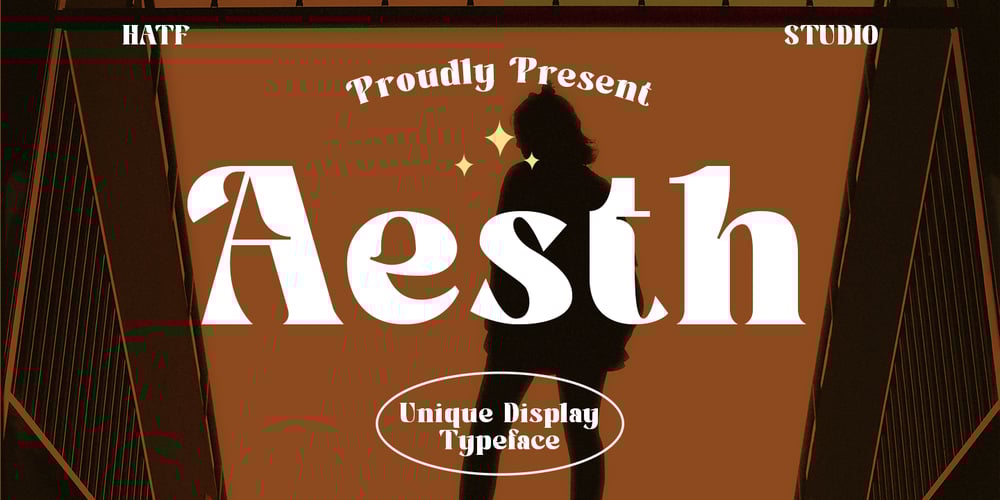
Aesth
Aesth font
Aesth Font Family was designed by Asep Rendi and published by Hatftype. Aesth contains 1 styles and family package options. Aesth is a unique display typeface. Is a visual feast that transcends traditional boundaries. With its unconventional shapes and dynamic letterforms, bold, imaginative, and utterly distinctive this typeface commands attention and breathes life into any design it graces. Each character is a work of art, meticulously crafted to convey a sense of innovation and originality.The typeface’s intricate details and unexpected twists create a captivating visual rhythm, making it a perfect choice for projects that demand a touch of the extraordinary. Whether used in headlines, logos, or creative branding, this typeface effortlessly elevates the visual impact of any composition.Embodying a perfect blend of sophistication and avant-garde flair, this unique display typeface is a testament to the power of design to push boundaries and spark creativity. It’s not just a font; it’s a statement, a conversation starter, and a bold expression of individuality in the world of typography.